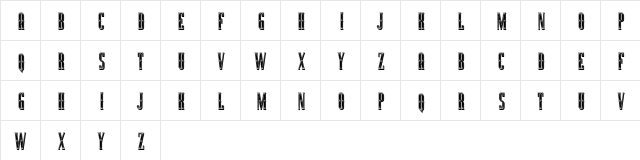
Wedding Cabbage Regular
Design Context for Wedding Cabbage Typeface
Wedding Cabbage is a composed and adaptable typeface that performs quietly and consistently across a wide range of design contexts.